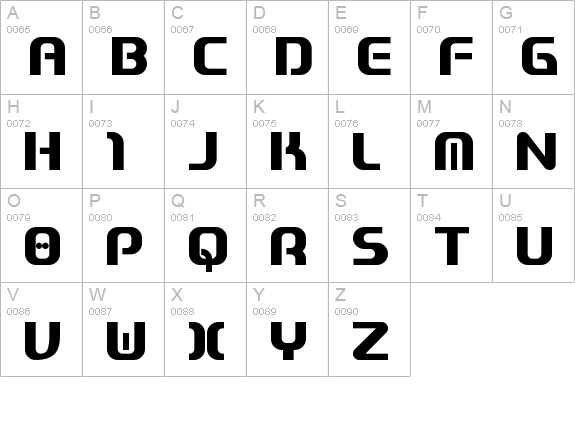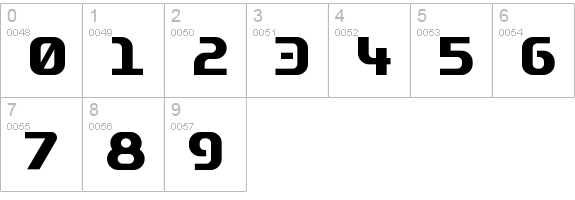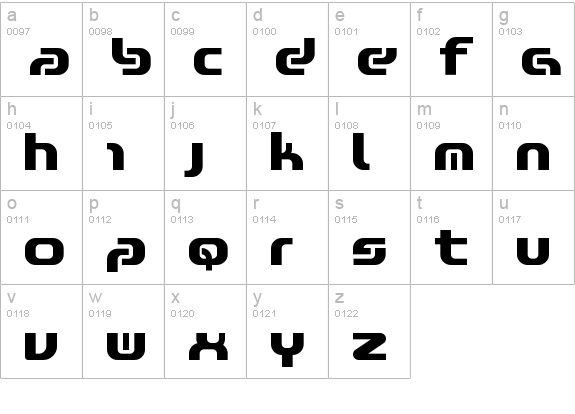
Zone99 Font Details
Introducing Zone99 font, a sleek and modern typeface that exudes sophistication and style. This versatile font is perfect for a wide range of design projects, from branding to editorial design. With its clean lines and elegant curves, Zone99 font will add a touch of class to any project. What sets Zone99 font apart is not only its impeccable design but also the fact that it is available for free download at FontsMarket.com. That's right, you can elevate your designs with this premium font without breaking the bank. Whether you're working on a logo, website, or print materials, Zone99 font will help you make a lasting impression. Don't miss out on this opportunity to enhance your design projects with the timeless elegance of Zone99 font. Download it for free today at FontsMarket.com and take your designs to the next level.